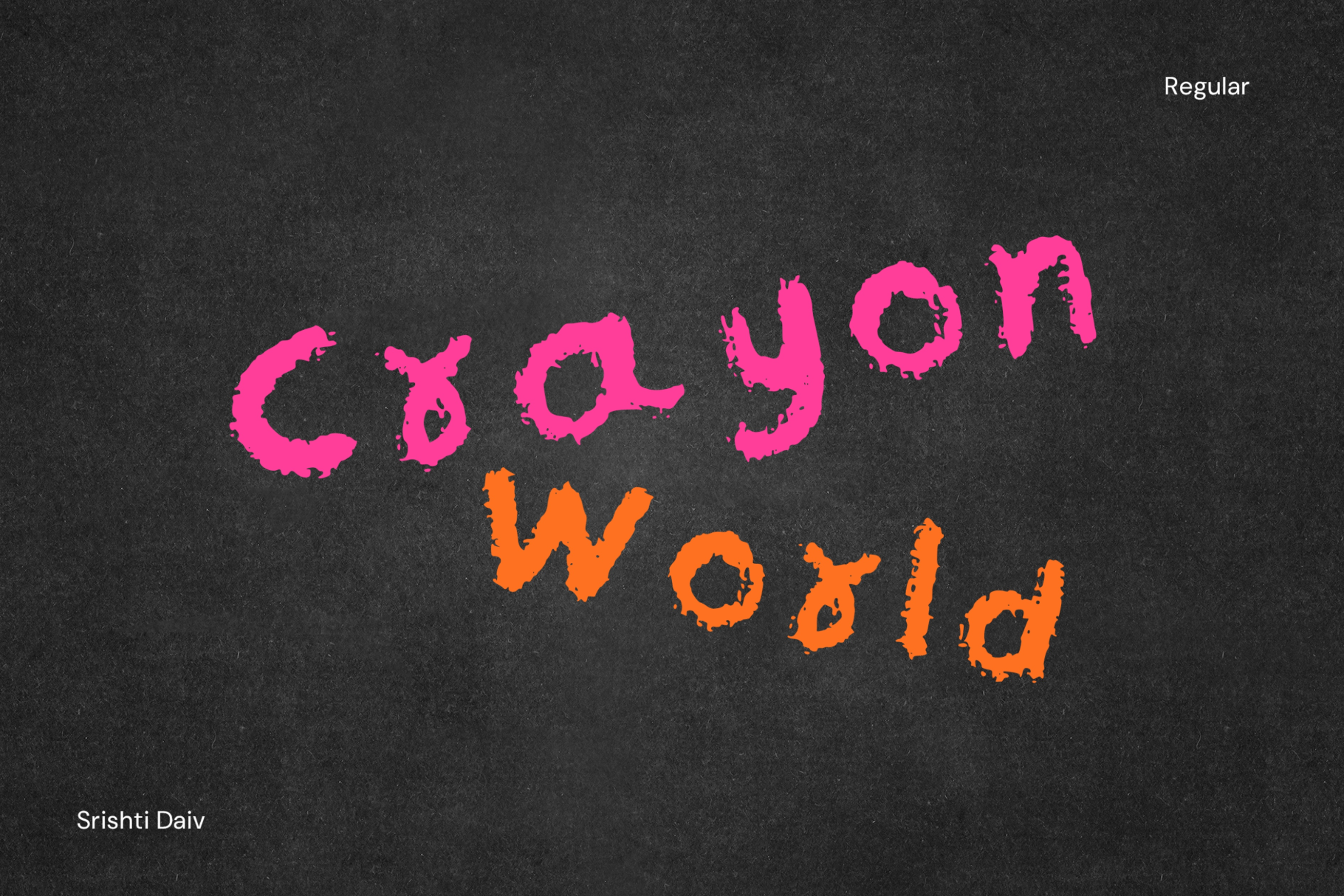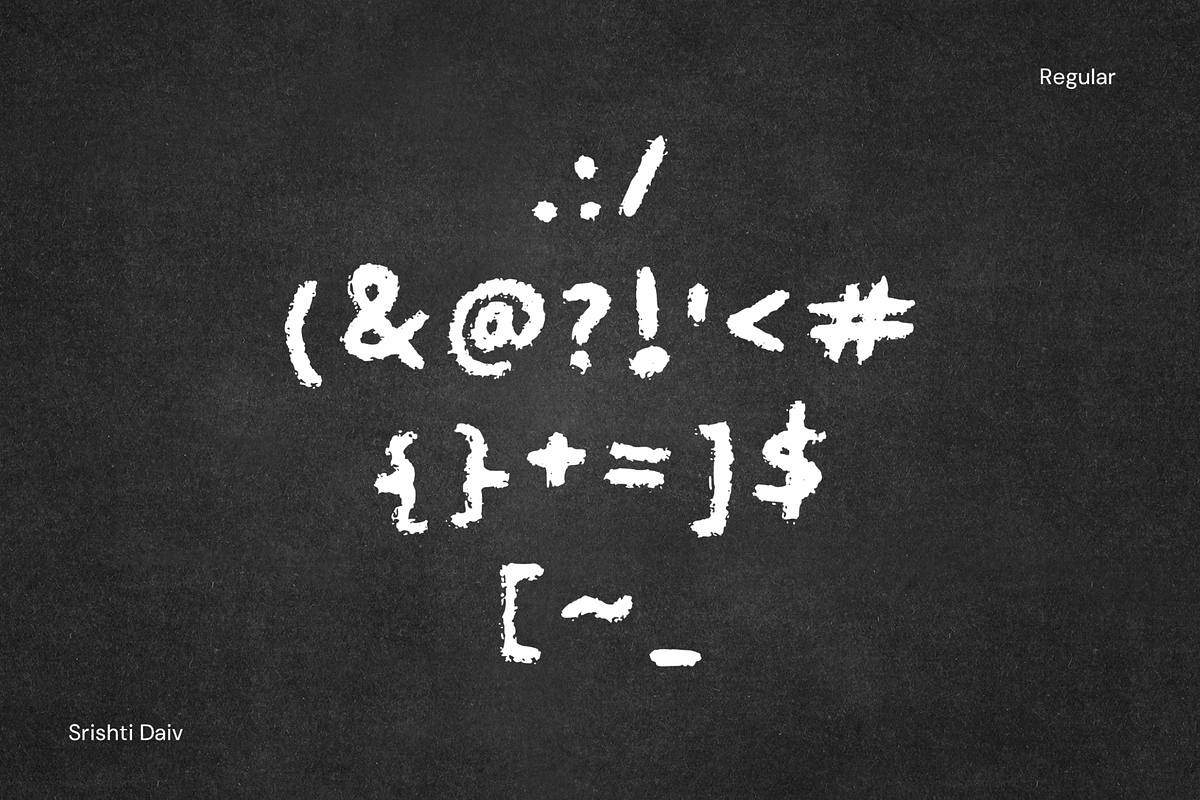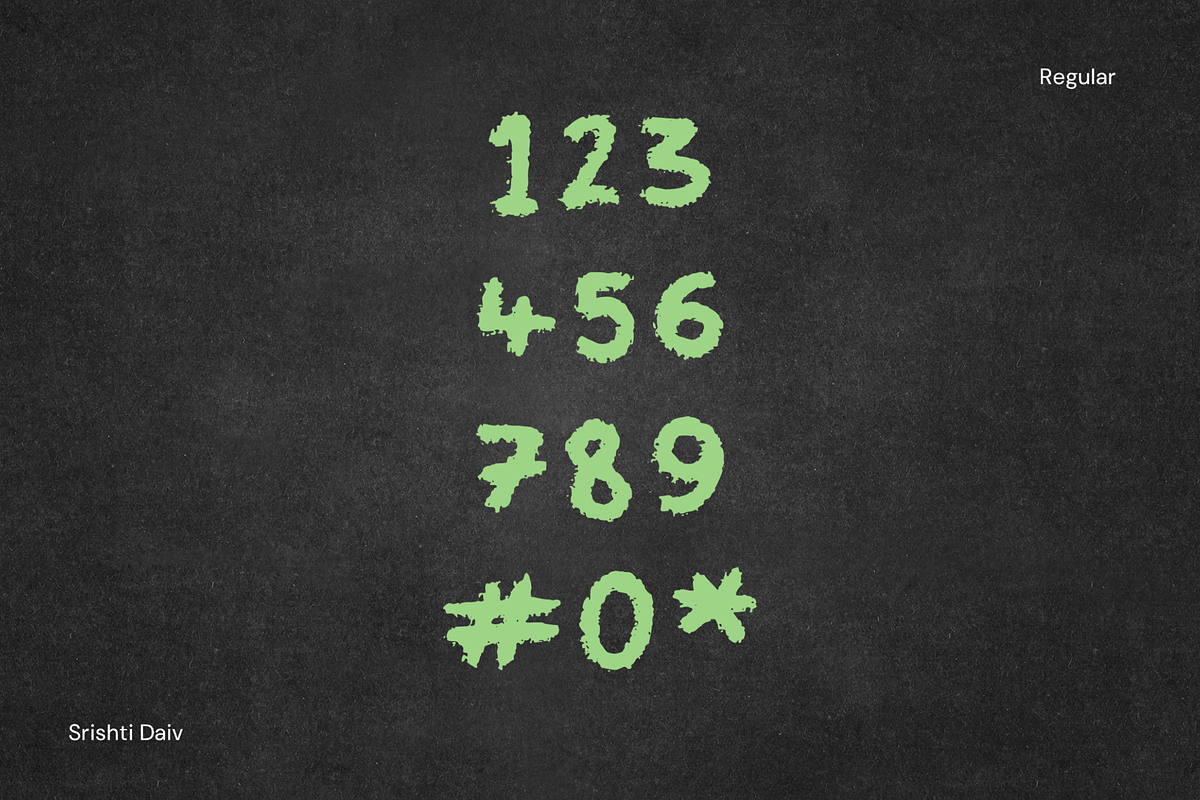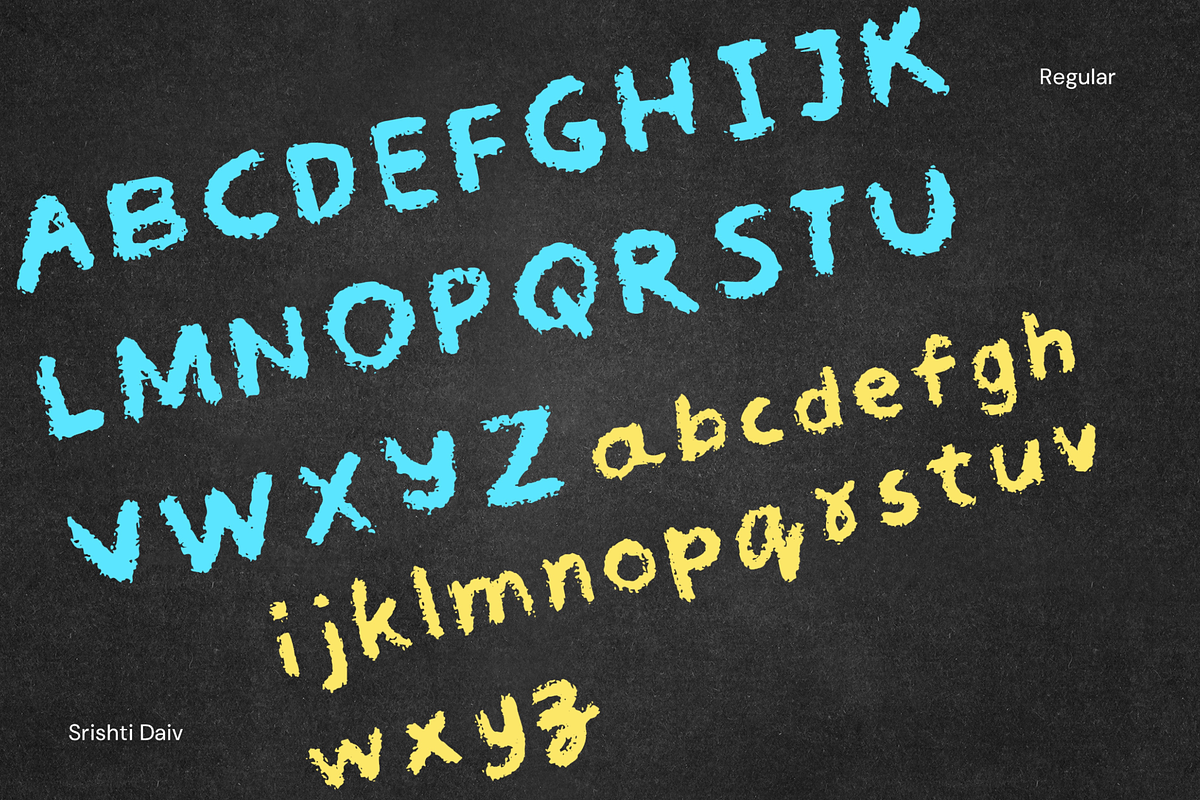
Crayon World font - cute, school
A simple handwritten crayon style font - suitable for back to school projects, kindergarten design, school projects. Upon successful purchase - .ttf and .otf files are available for download immediately.
Perfect for display font, suitable for book covers, educational material, graphic design, and more.
Please note, numbers, special characters, currencies, a total of 130 glyphs are included.